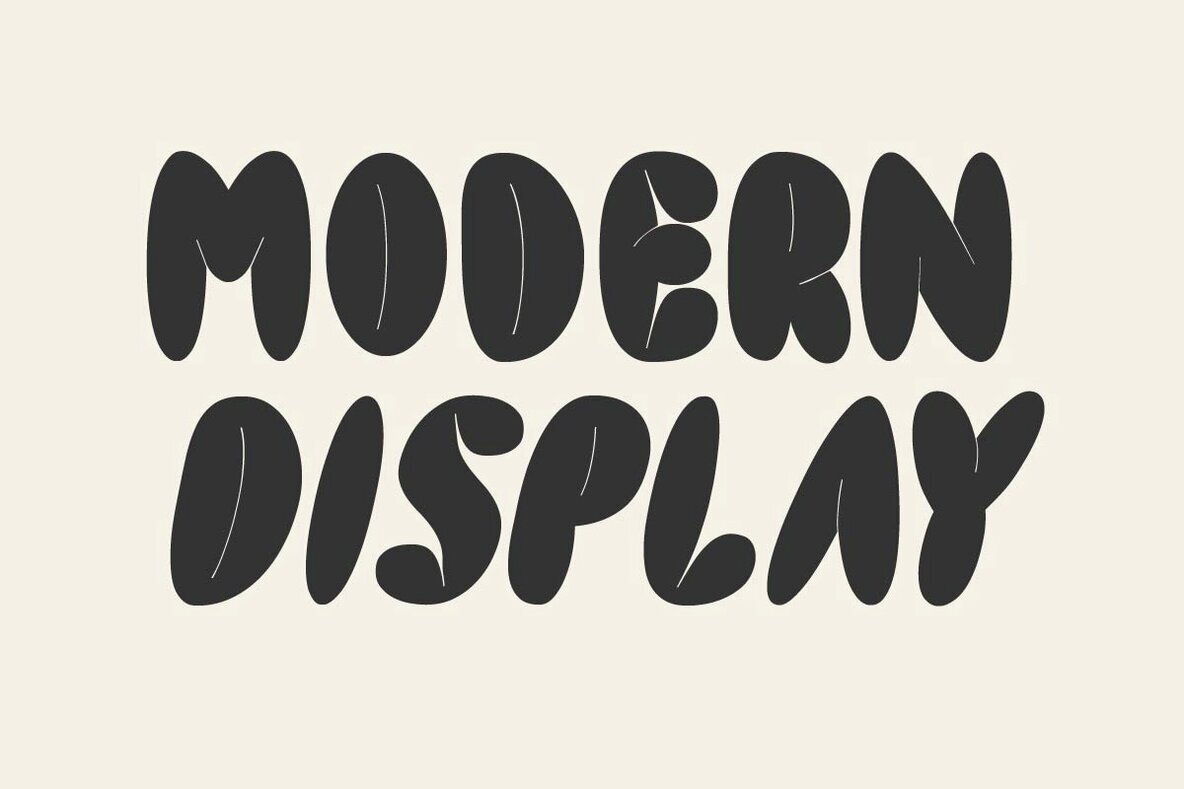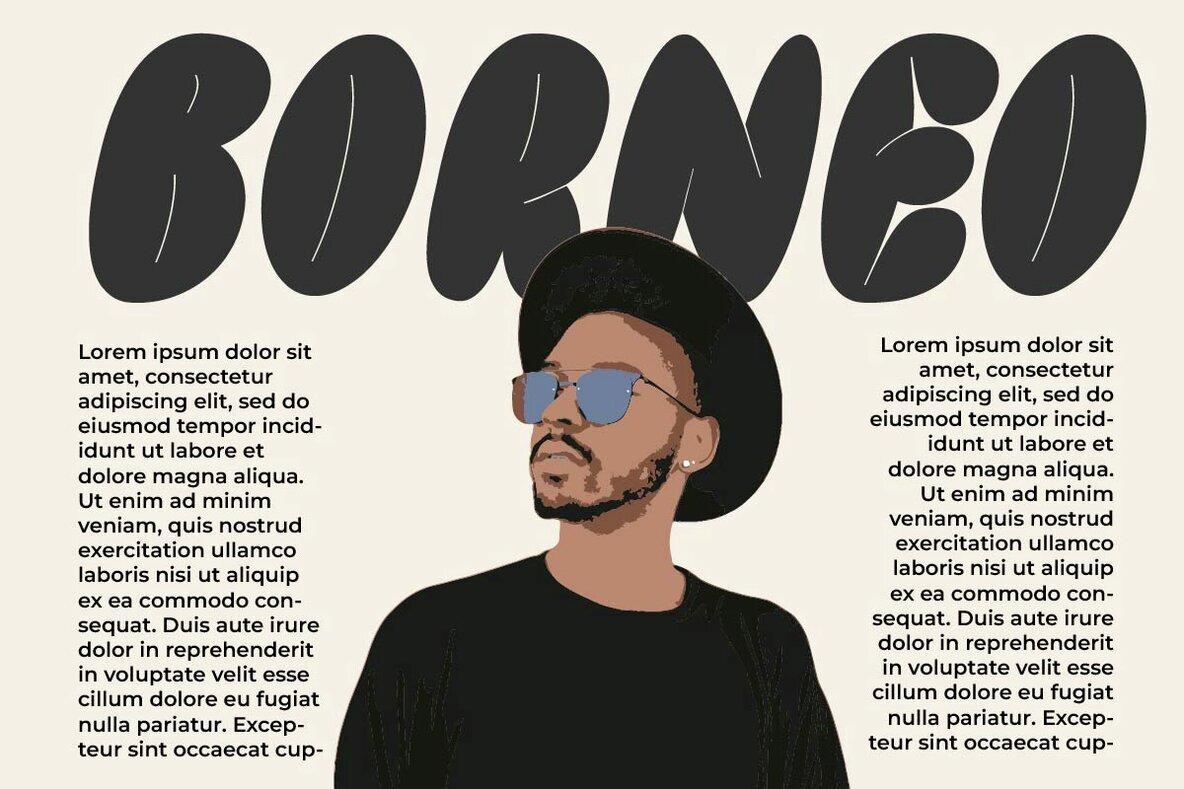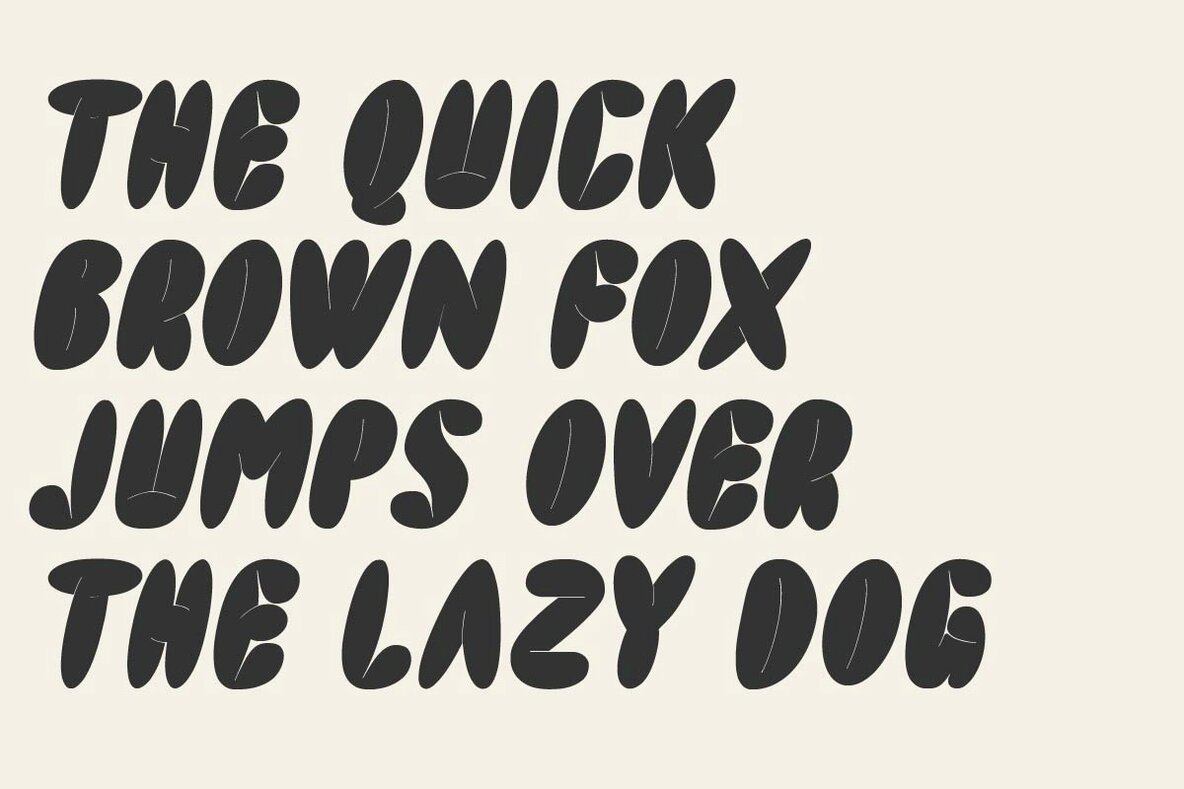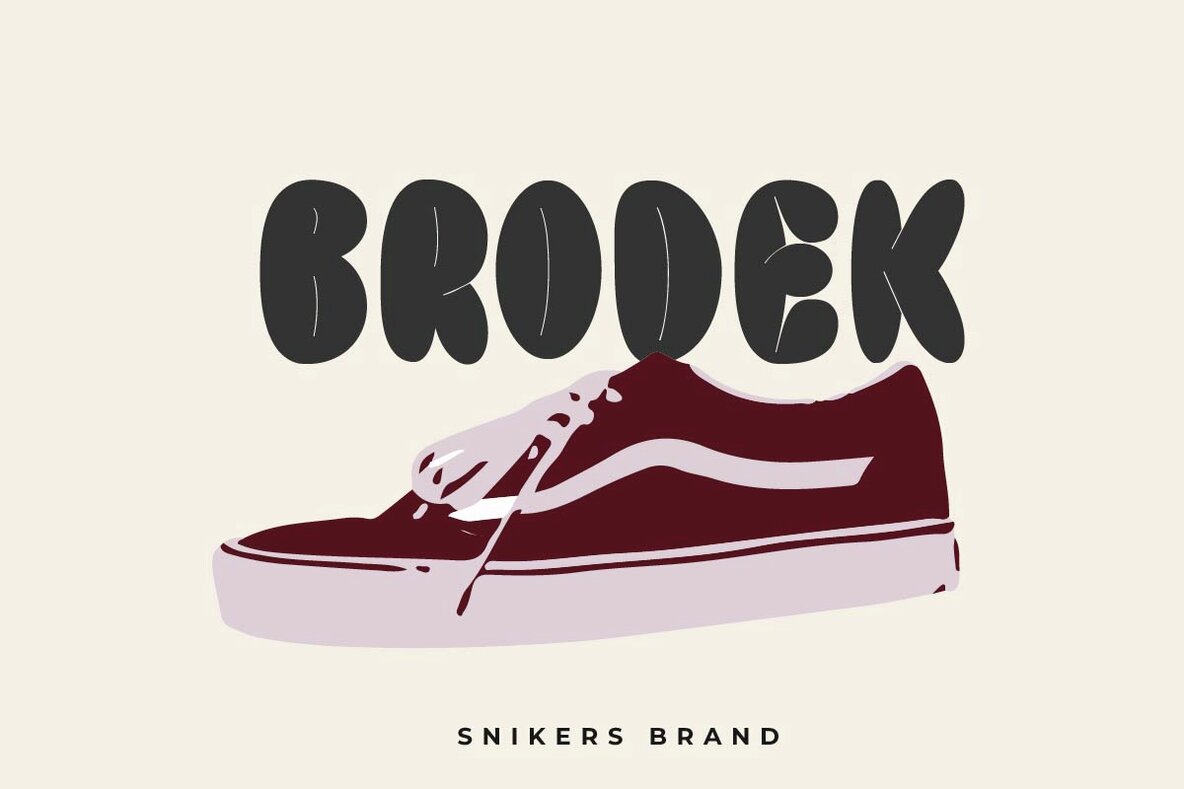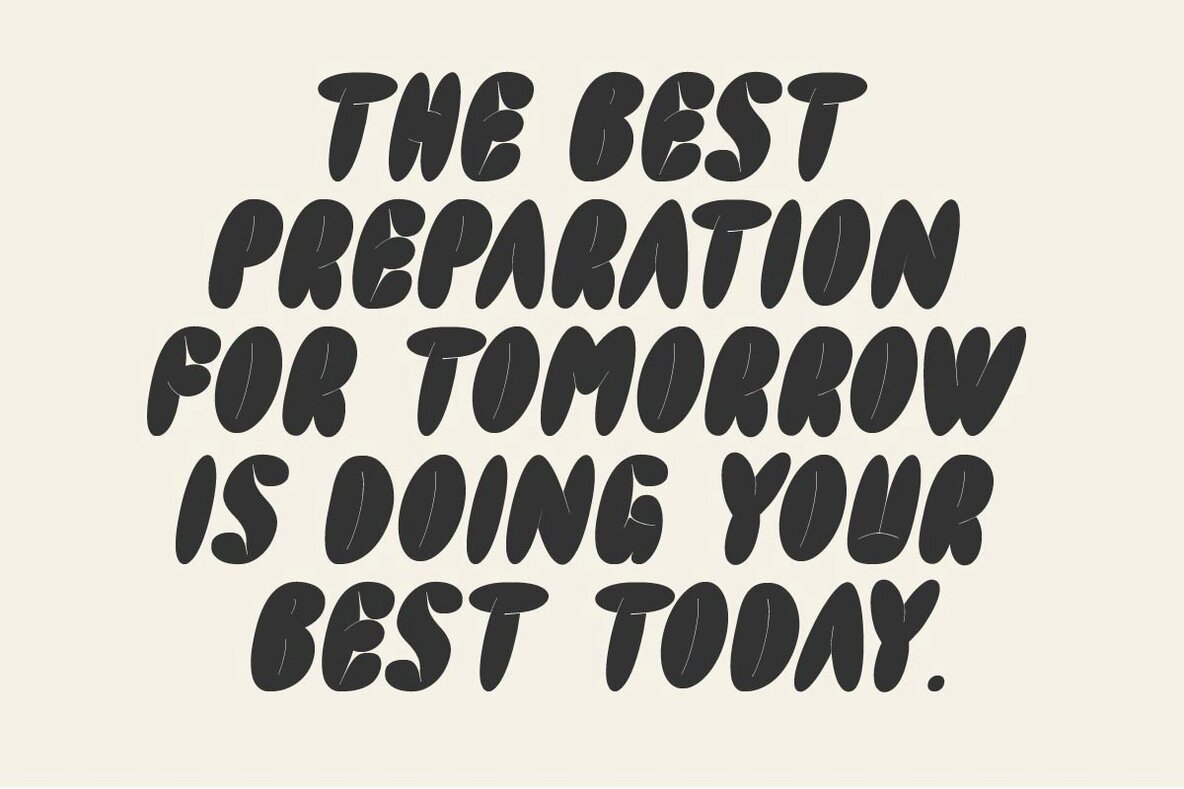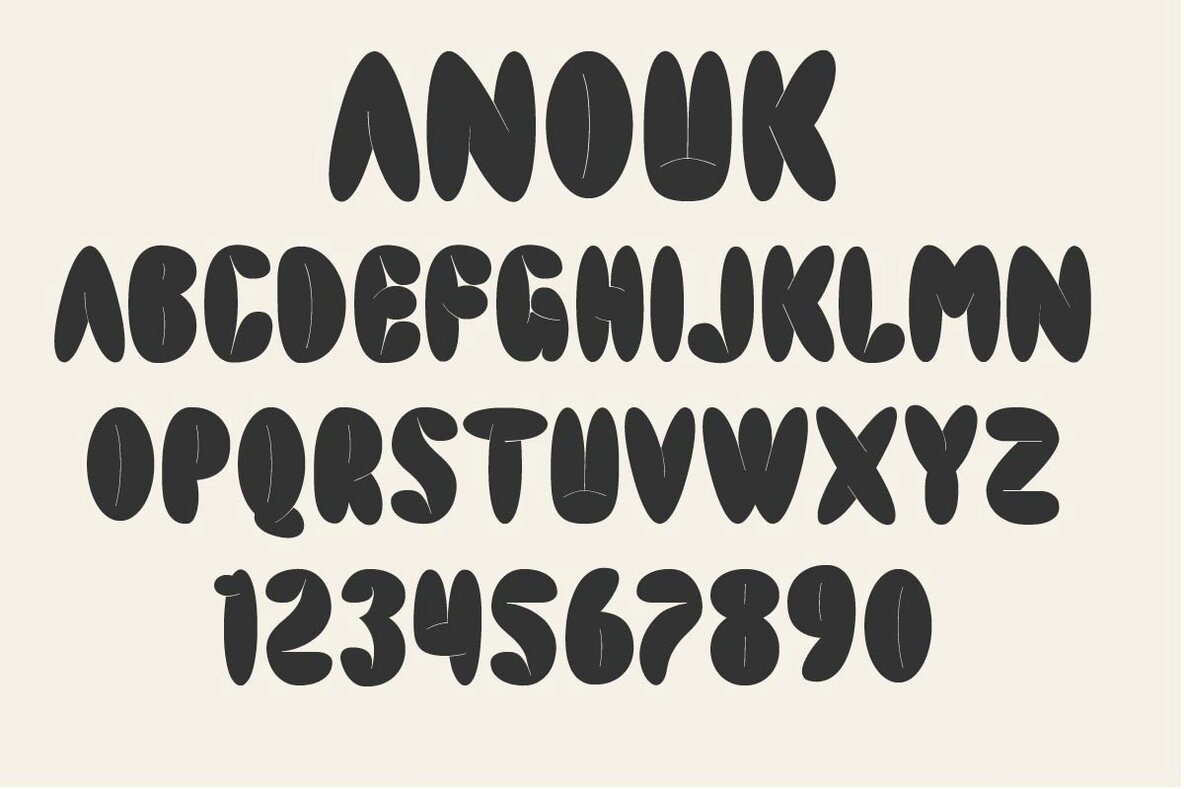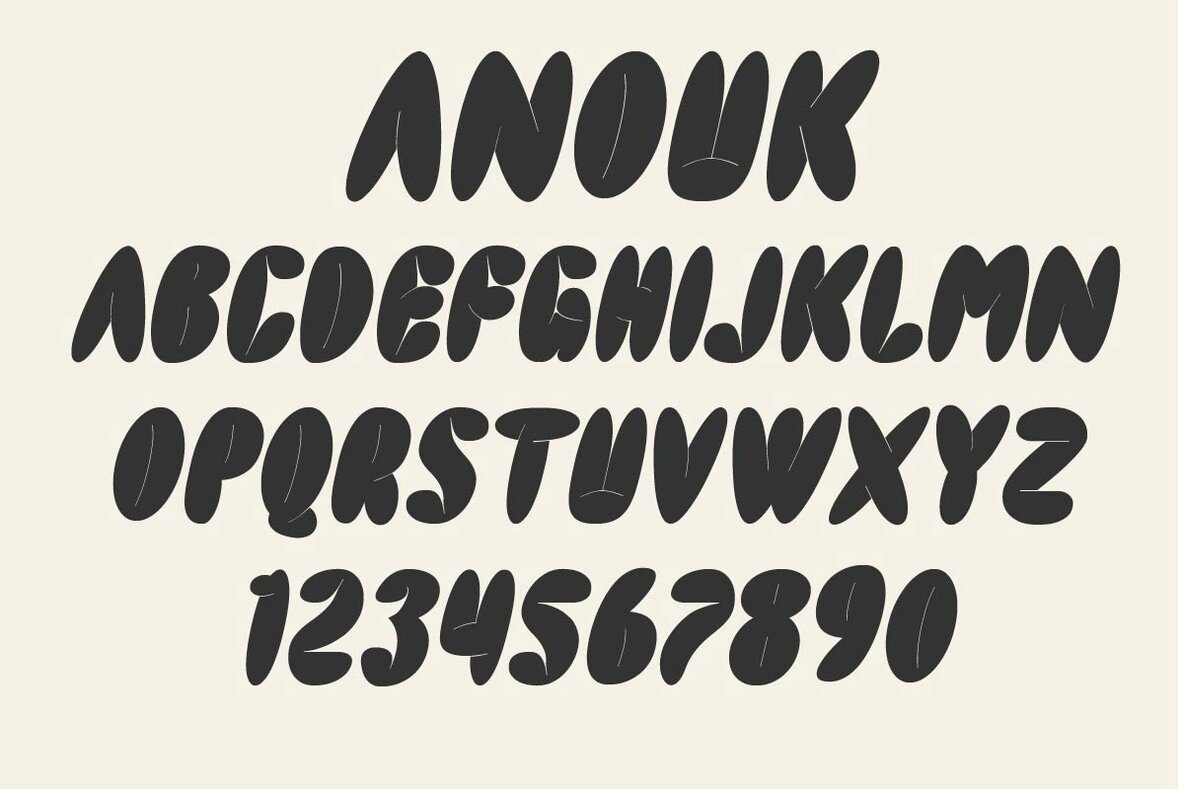
Anouk Font
Anouk by Muksal Creative is a modern display font featuring special glyphs, ornaments, and multilingual support. Its versatility makes it suitable for both large and small sizes, making it perfect for editorial projects, logo design, clothing branding, product packaging, magazine headers, or as a stylish text overlay on any background image.Anouk: Versatile Modern Display Font